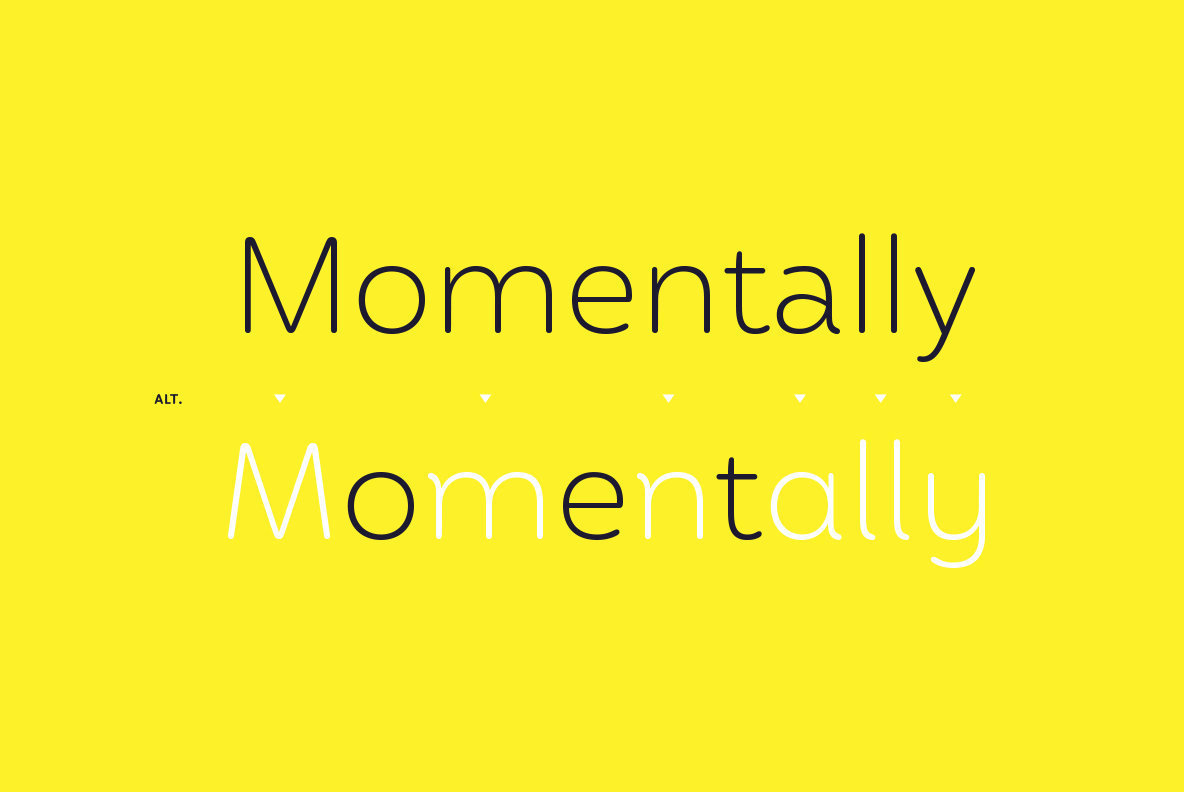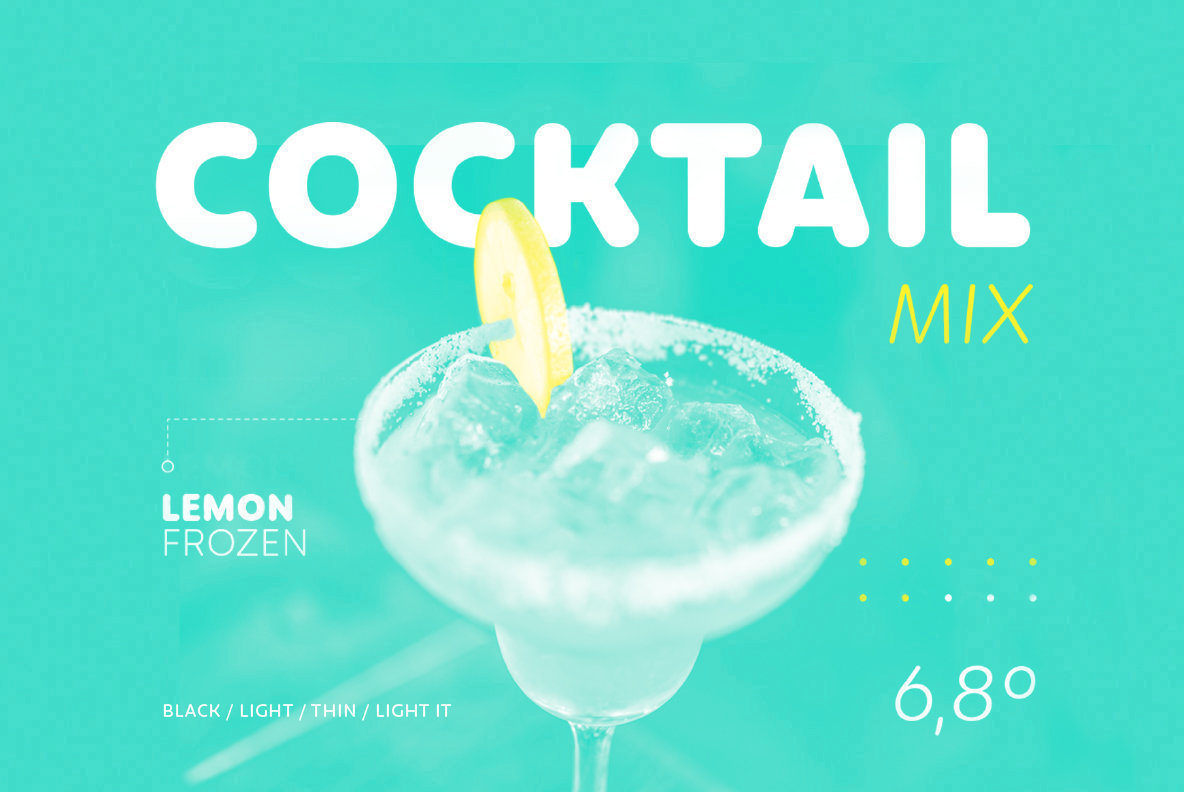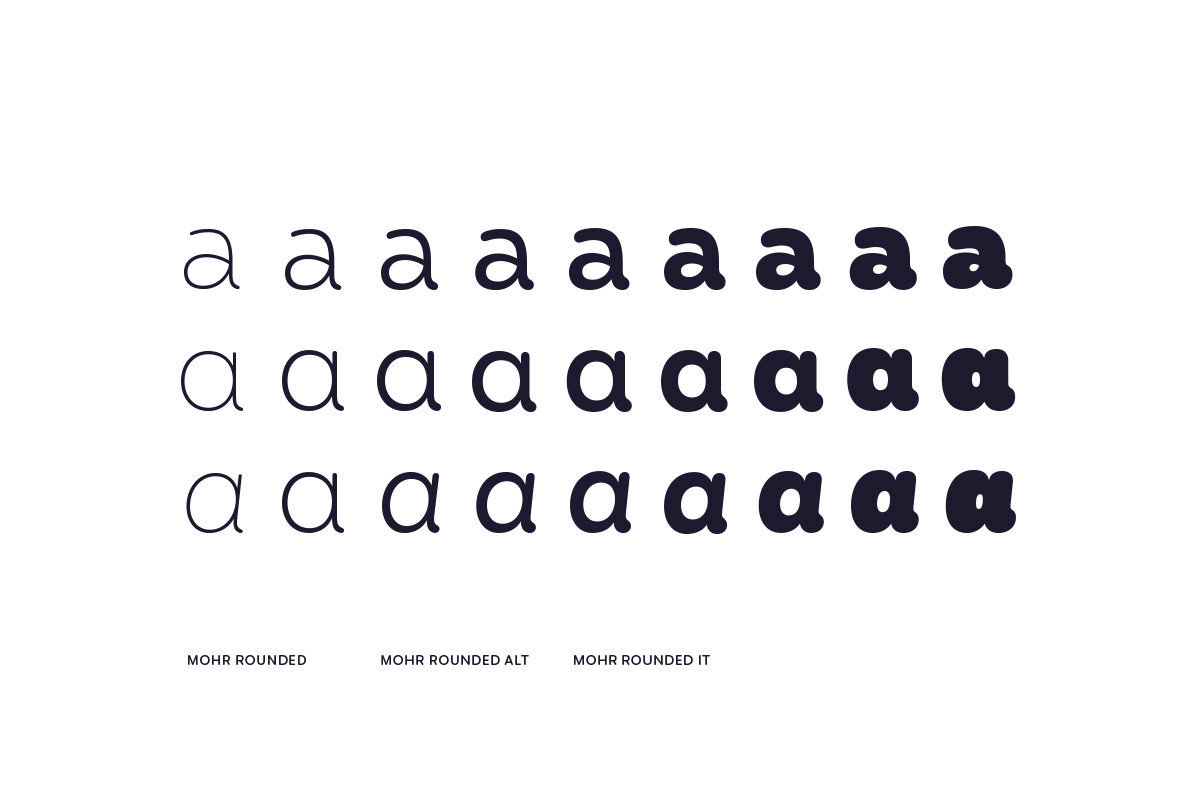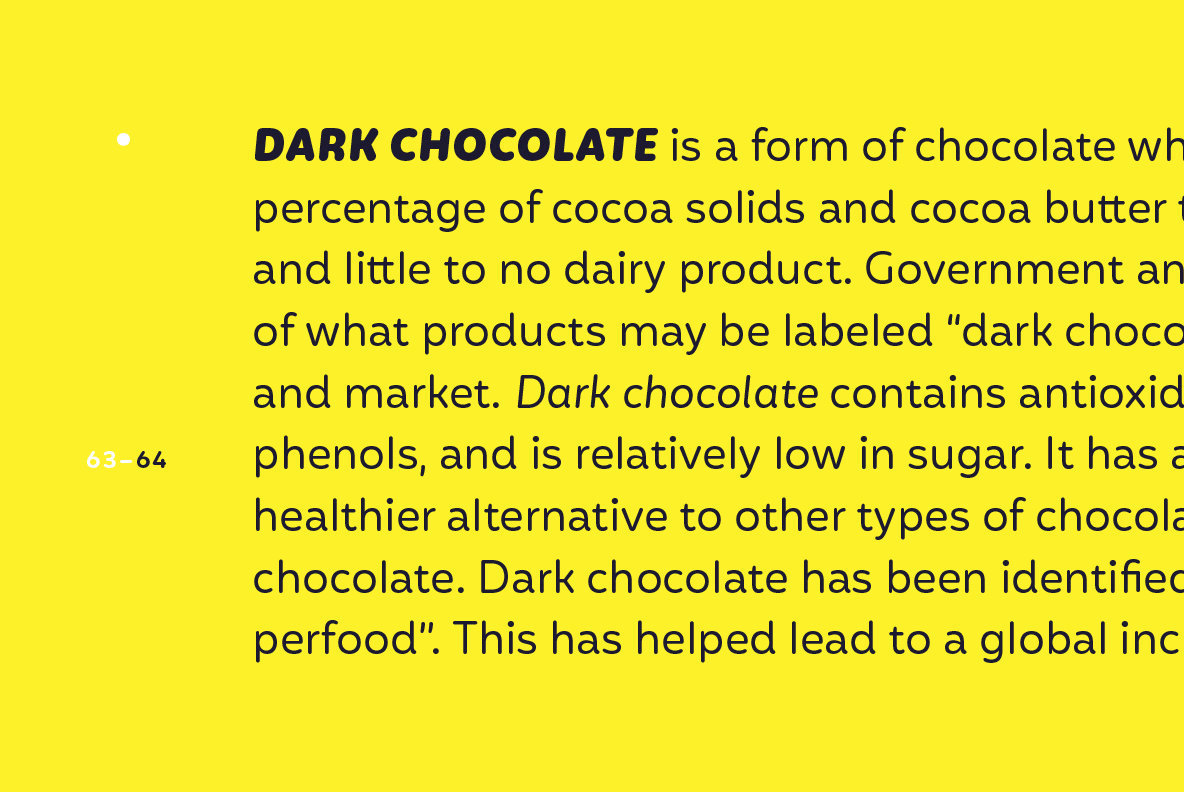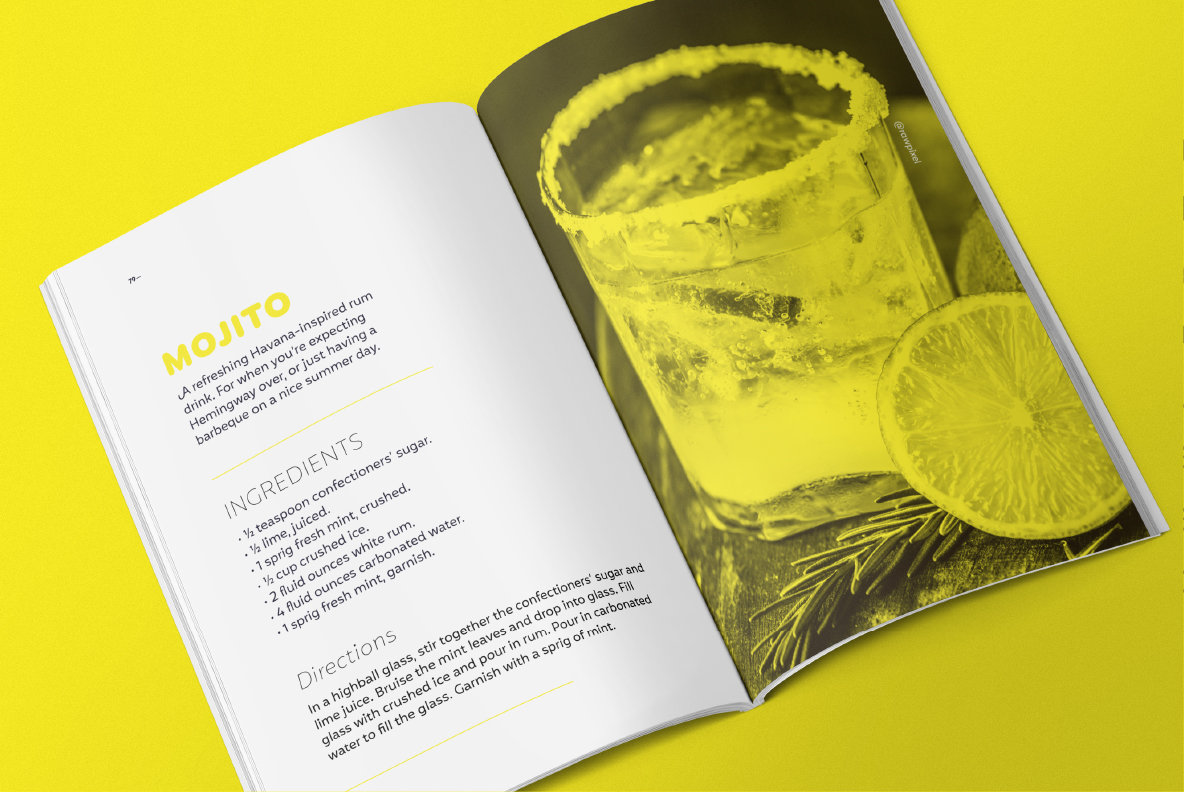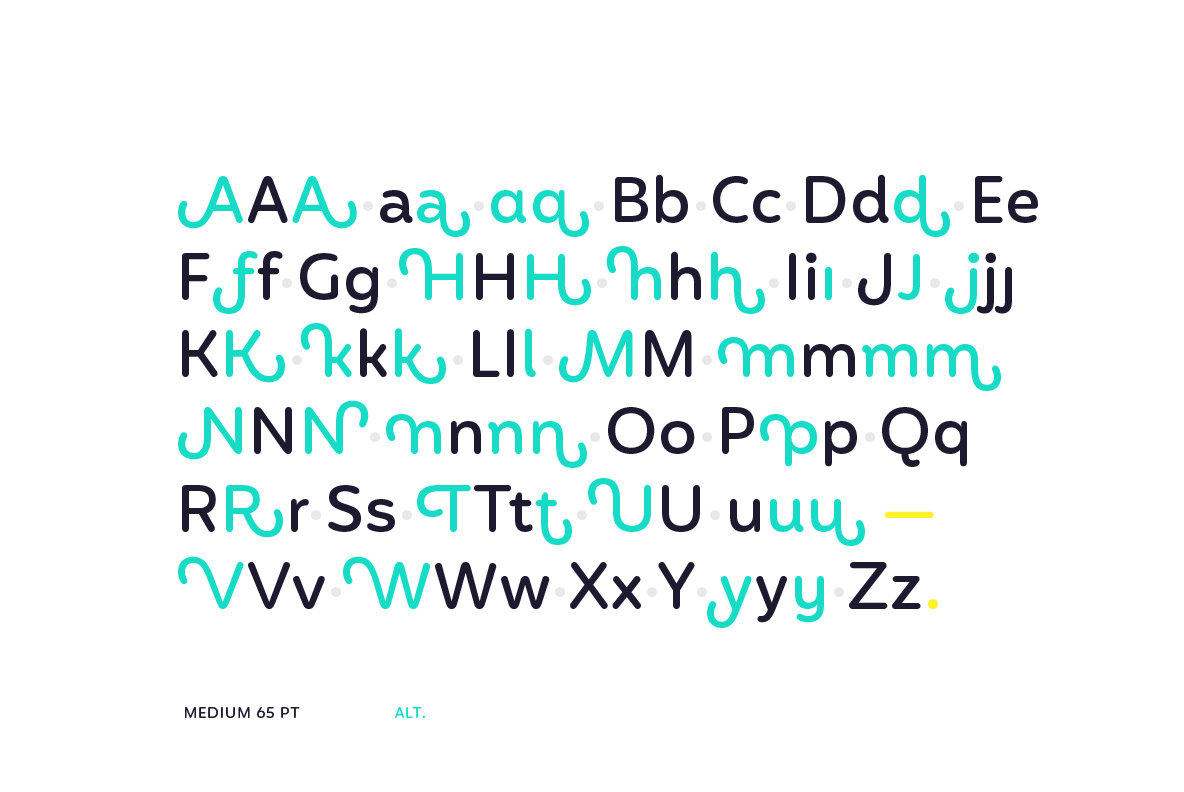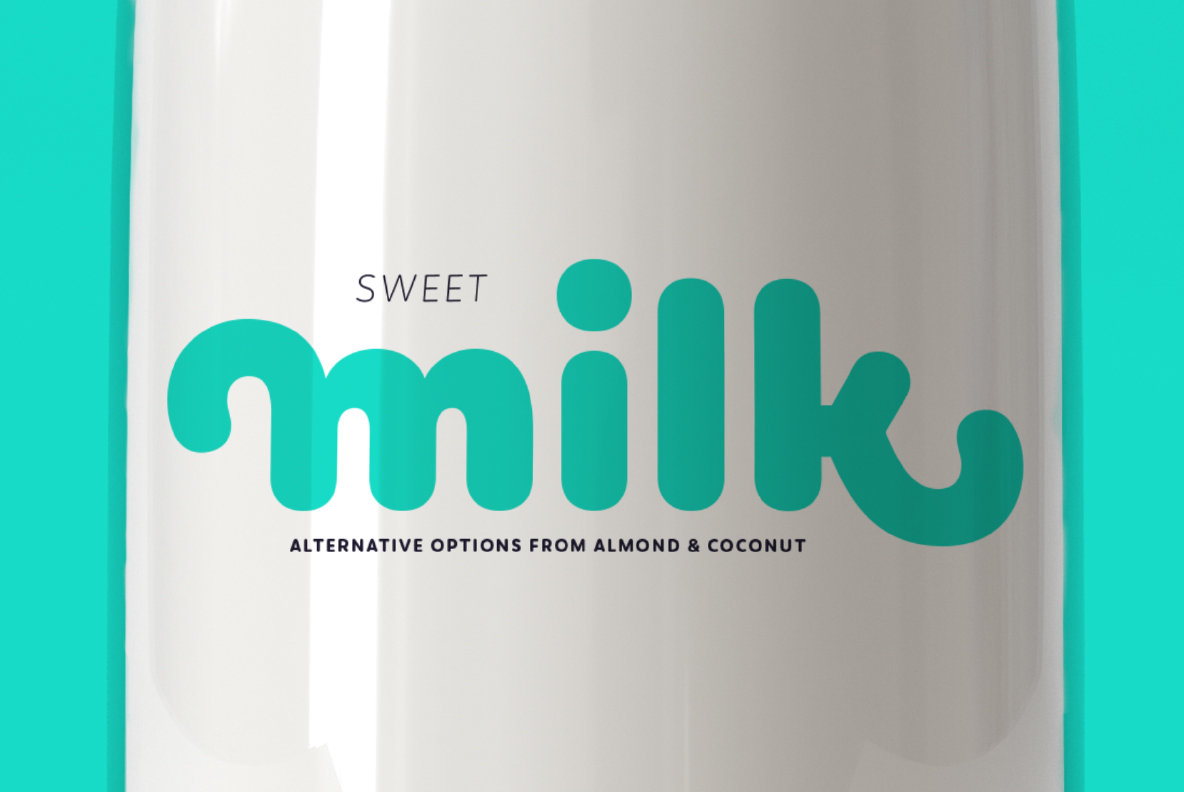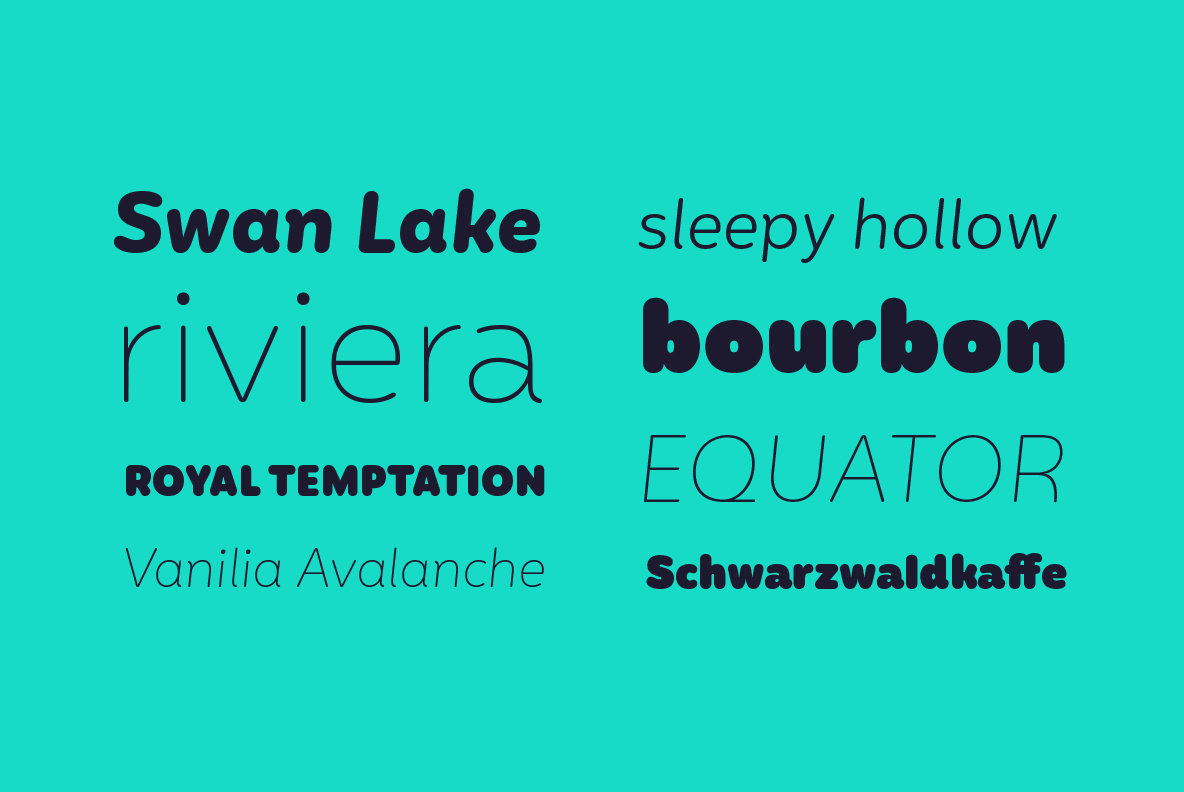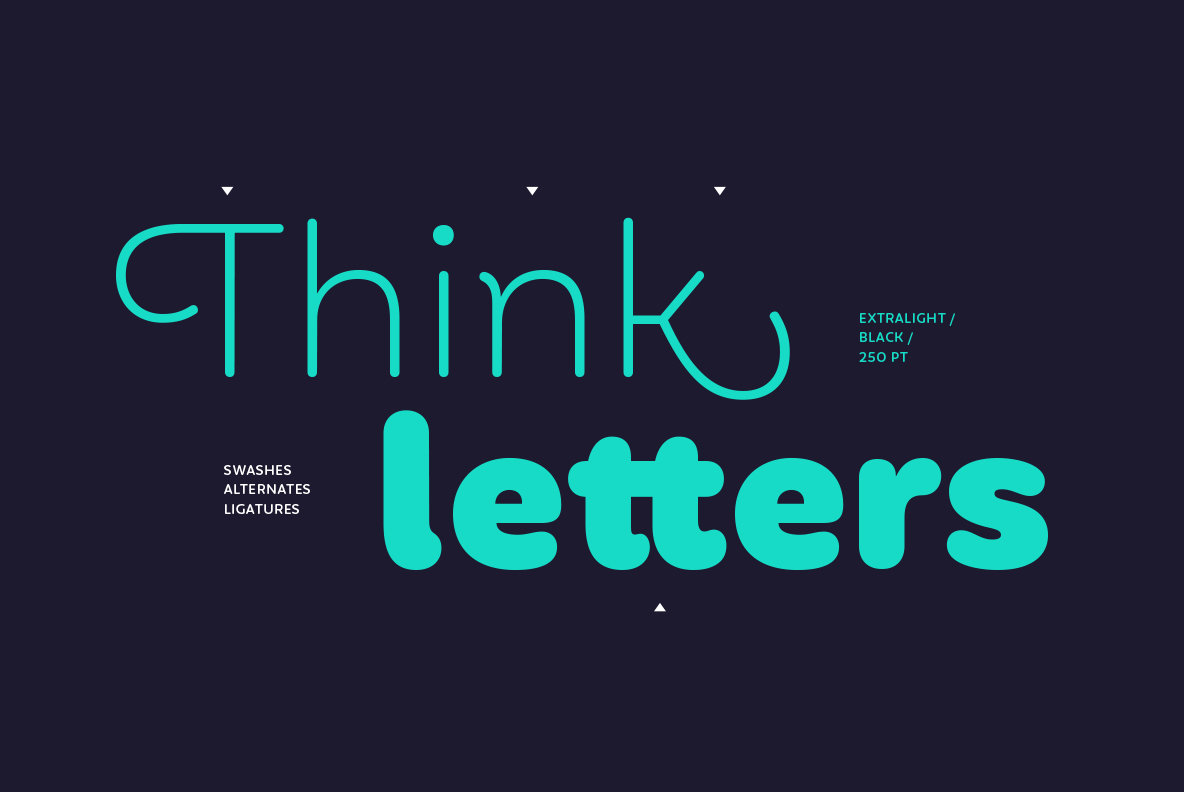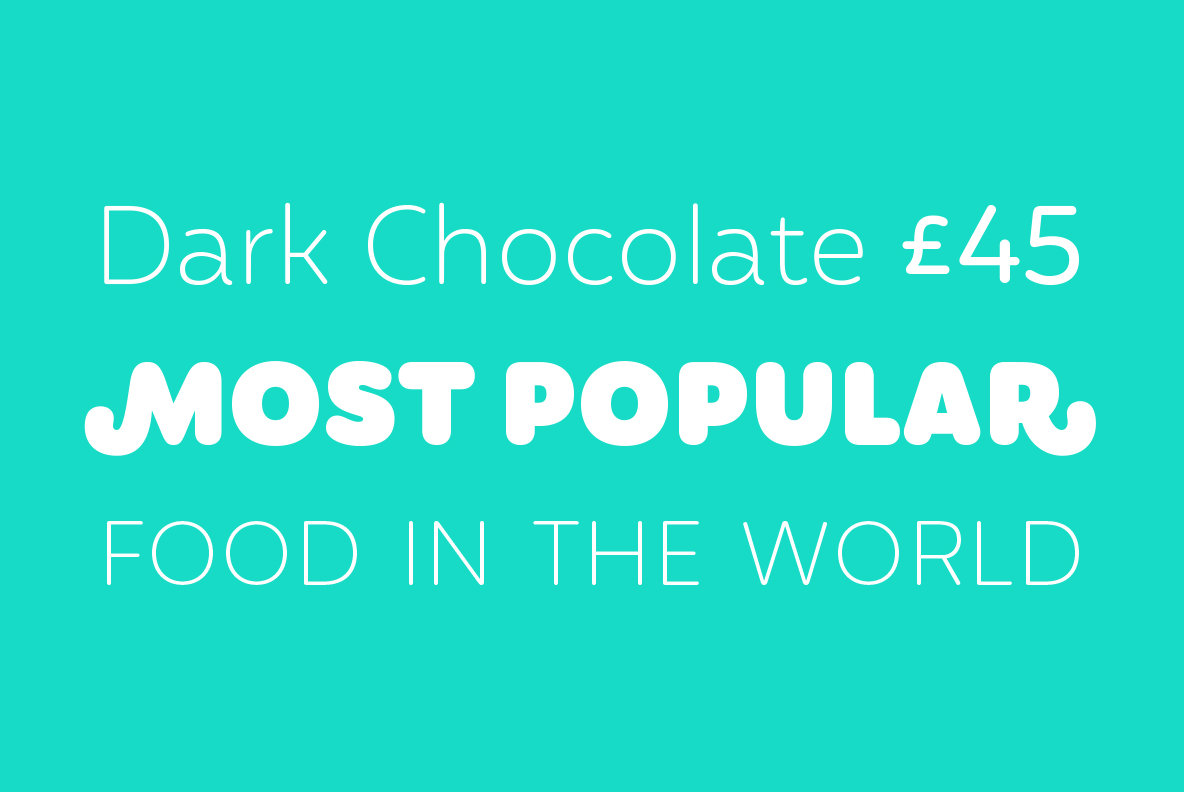
Mohr Rounded Font
Mohr Rounded—the new version of the original Mohr typeface—features curved and softer terminals which make the font look more organic, warm and friendly.
The Mohr Rounded family comes in three versions: normal, alt and italic, each with 9 weights, from Thin to Heavy, resulting in a total of 27 styles. The versatility of the font makes it suitable for a wide range of applications, from small text to high-impact headlines.
Mohr Rounded also includes initial and terminal swashes in most of the uppercase and lowercase characters. This provides a greater range of uses such as branding, packaging and identity design.